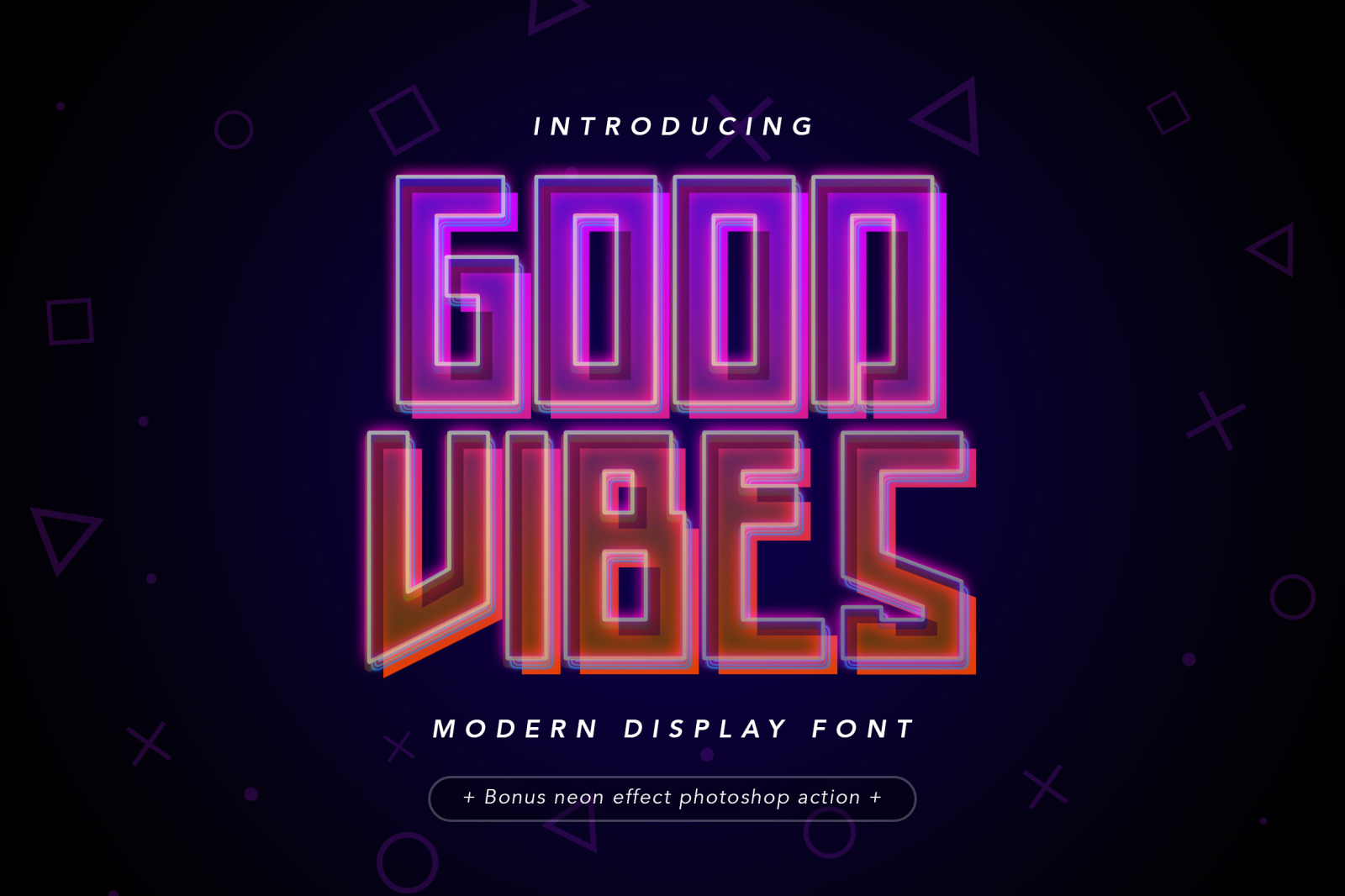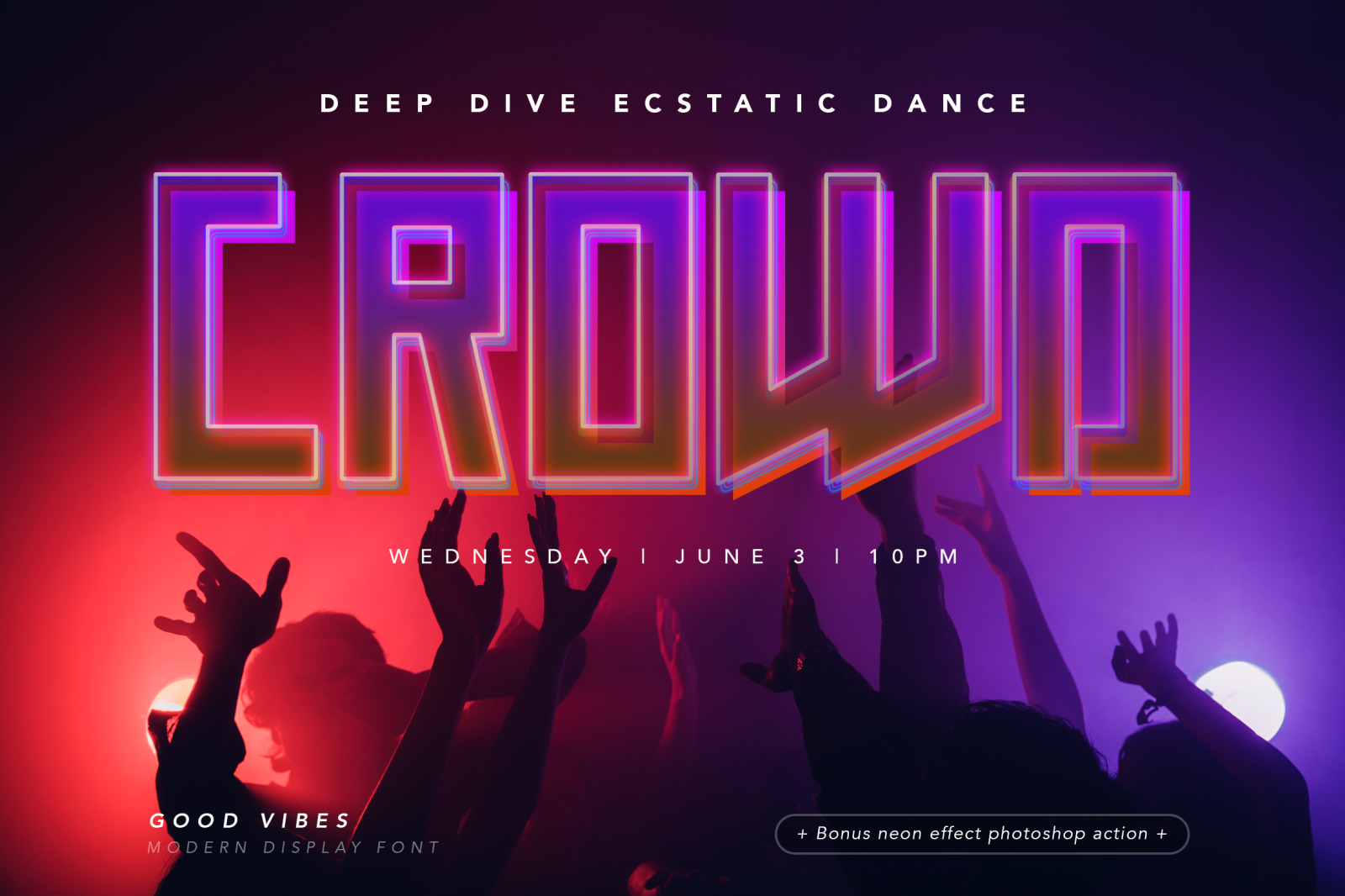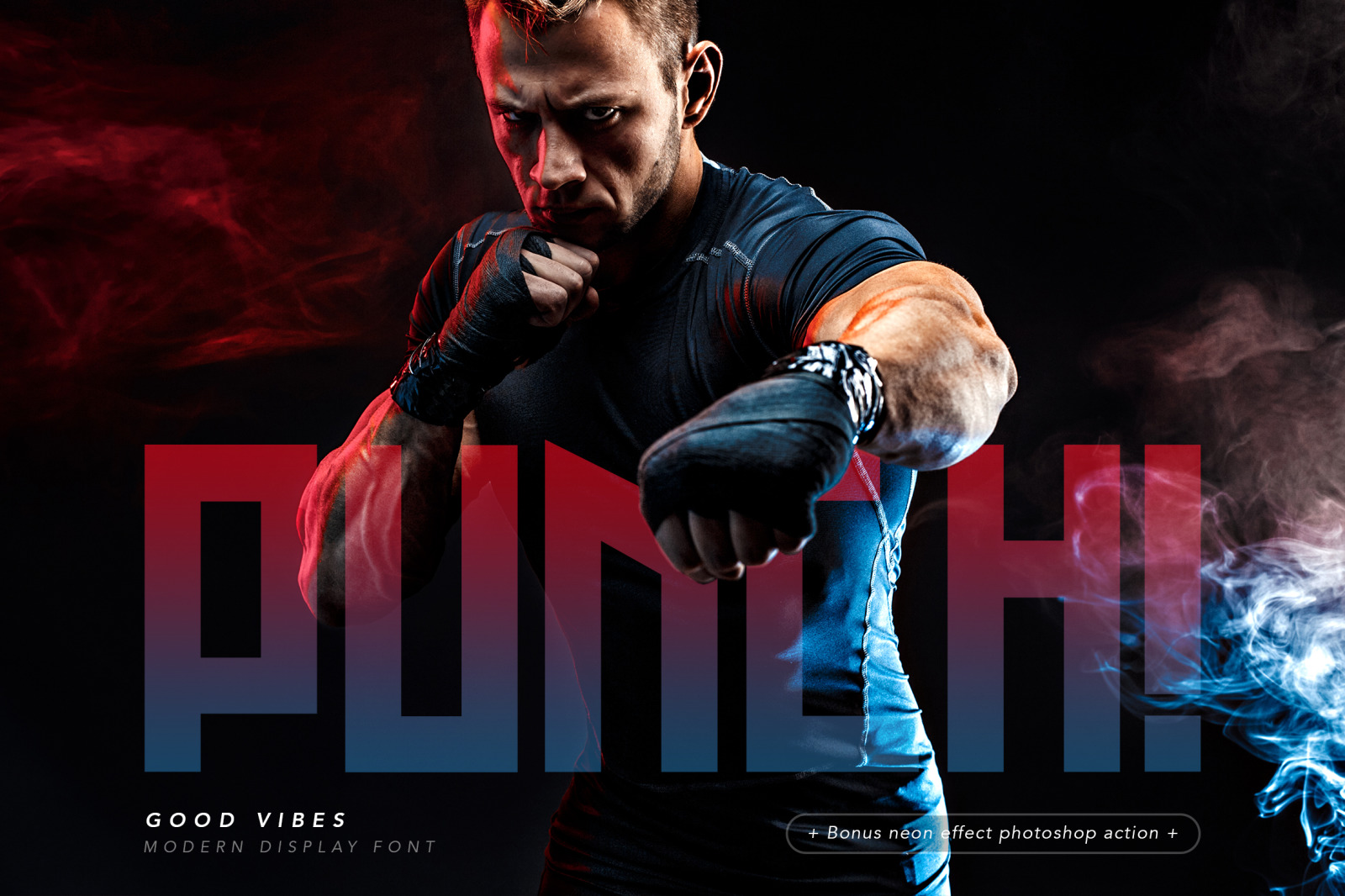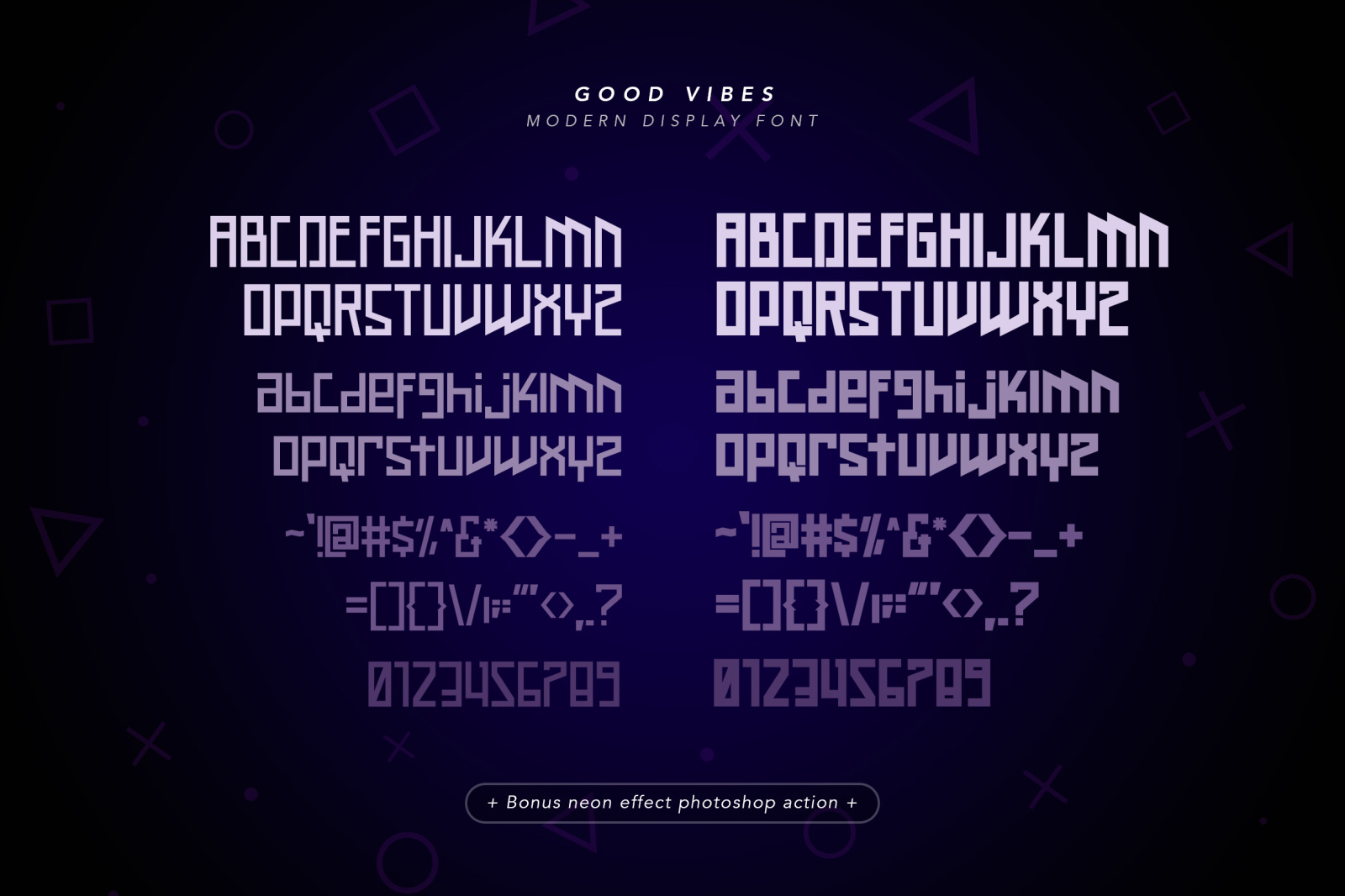
Good Vibes Modern Display Font
Good Vibes was born inspired by neon, modern technology, and sport. It is a display font that perfect for logo, quote text, dark theme, music, and a perfect fit for a sport themed - or a stylish text overlay to any background image. It built with a high level of legibility.
Good Vibes comes with a neon effect Photoshop action bonus. It helps you make a neon effect for this font easily!
Main Features:
+ Uppercase & Lowercase letters
+ Regular and Bold weight
+ Numbering and Punctuation
+ Bonus neon effect (Photoshop action)